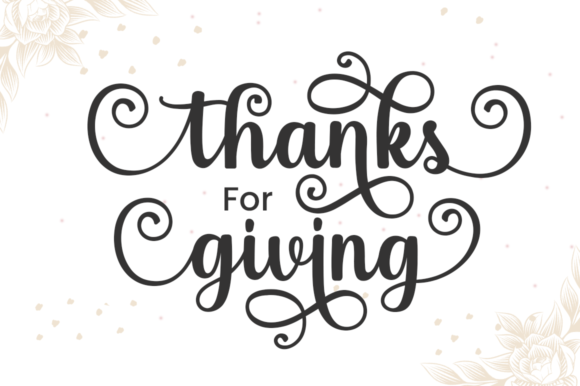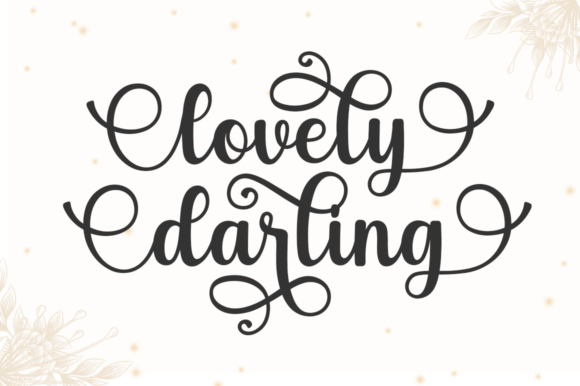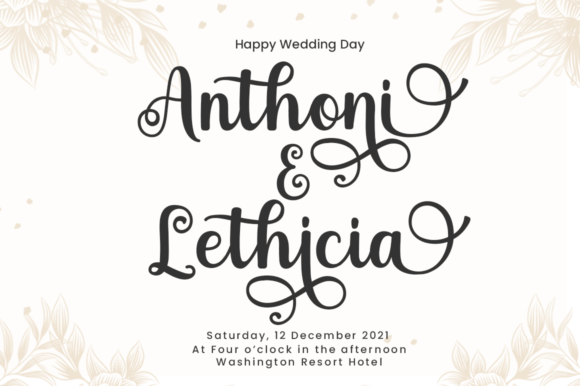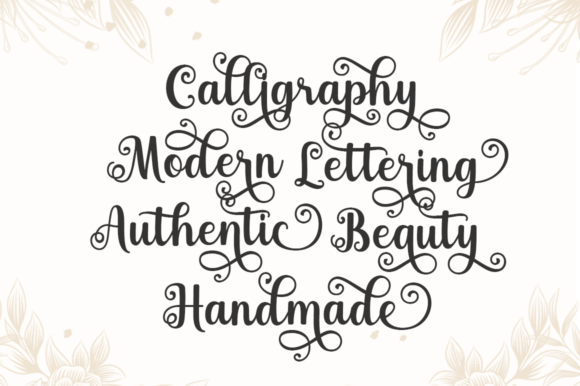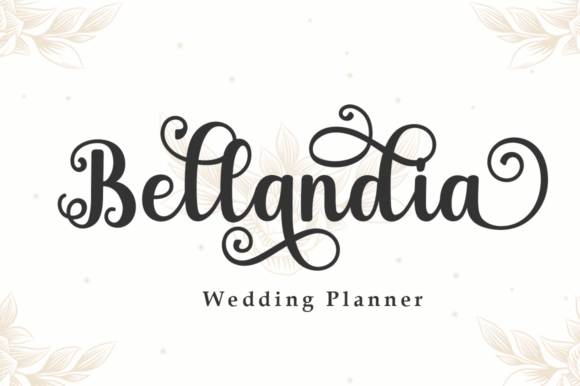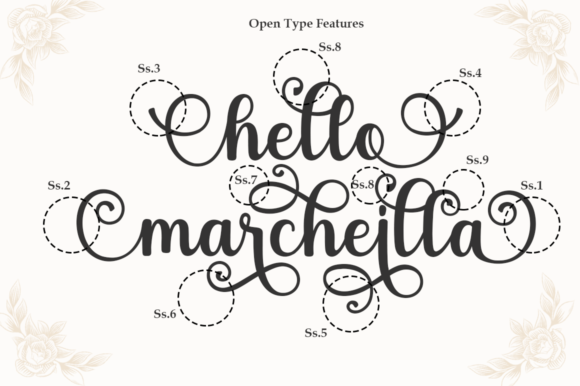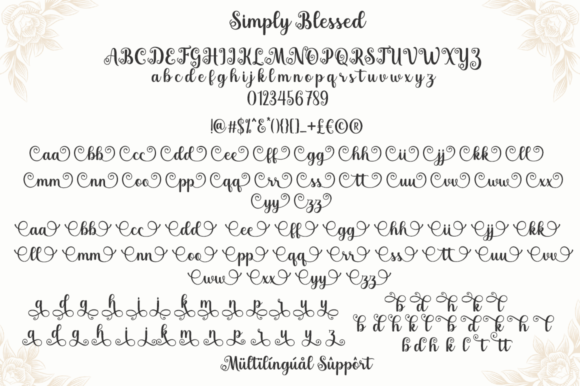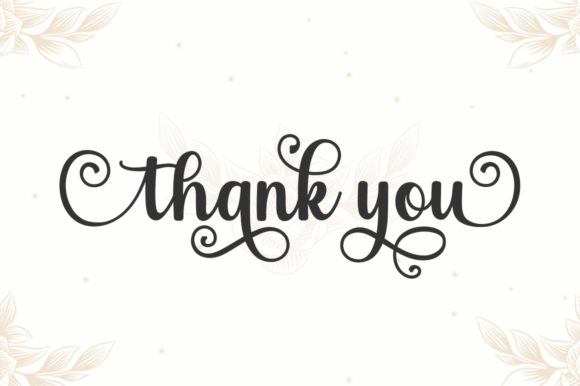
Simply Blessed Font
About Simply Blessed Font
Simply Blessed is a lovely and delicate script font that exudes elegance and class. This font is PUA encoded which means you can access all glyphs and swashes with ease!